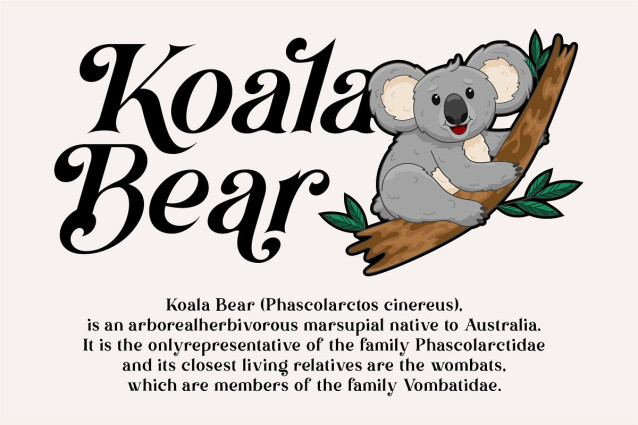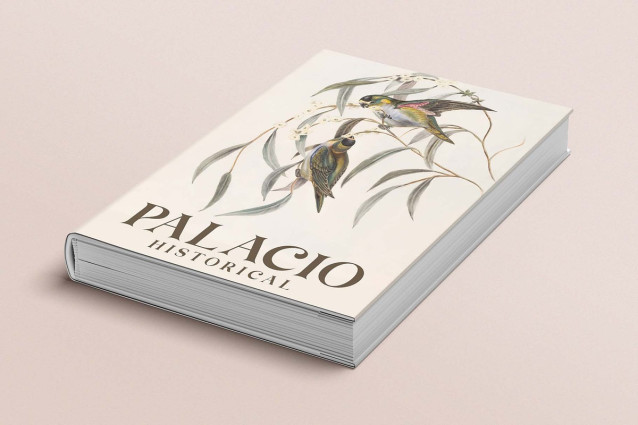
Brown Falco Font
Brown Falco Font – Specially designed for branding needs, with unique shapes, alternates will add value to your brand. This font is perfect for designers or product owners who need a solution to make their designs look more classic and elegant. In particular, the font supports multilingual, numbers, punctuation and alternates.